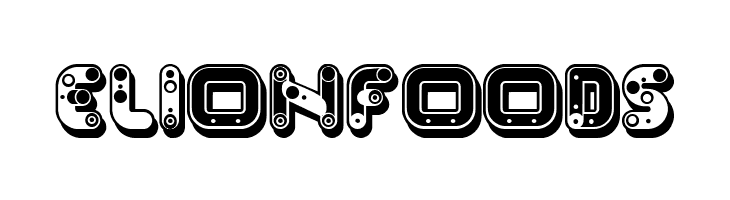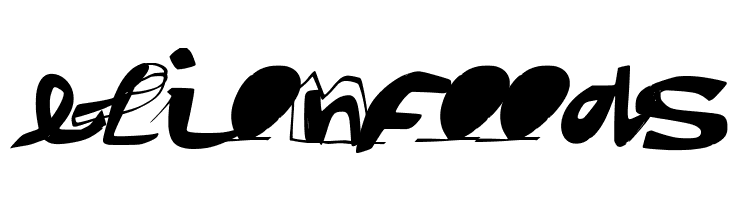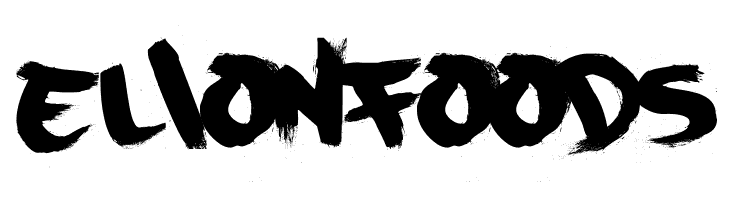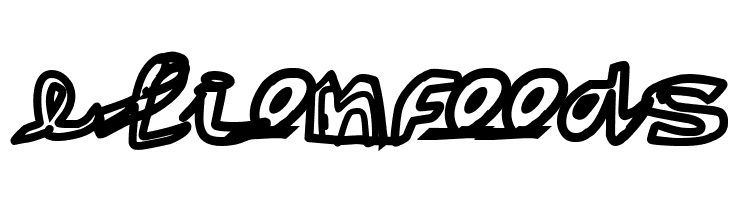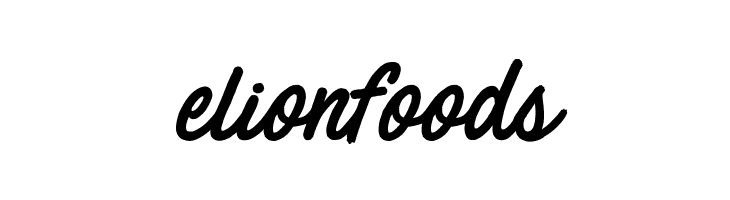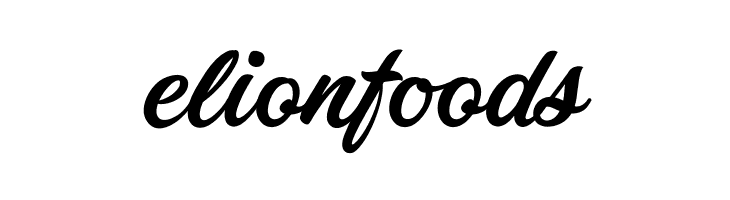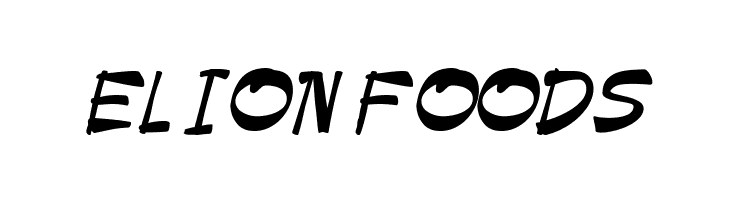
A bold, playful font with bubble-like shapes and decorative cutouts.
A bold, graffiti-inspired font with dynamic, irregular shapes.
A bold, graffiti-inspired font with playful, hand-drawn characters.
A dynamic, brush-stroke inspired font with bold, artistic characters.
Bold brush script with graffiti-inspired, textured strokes.
A bold, fluid script font with elegant, interconnected letters.
A bold, cursive font with a flowing, handwritten style.
A dynamic script font with elegant, flowing cursive letterforms.